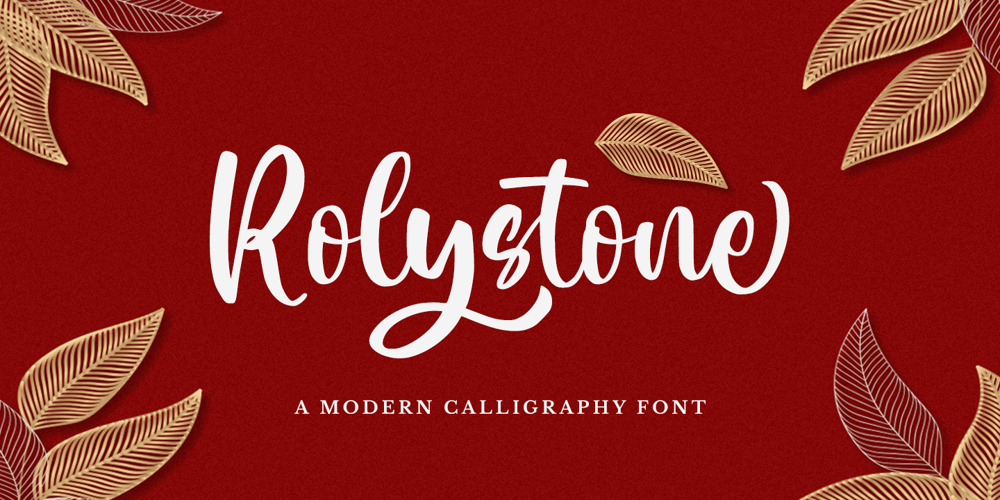
Rolystone Font Family was designed by Novia Himatunnisa and published by Nissa Nana. Rolystone contains 1 styles and family package options. Rolystone is a flowing and graceful script font. Fall for its ravishing style and use it to create gorgeous wedding invitations, beautiful stationary art, eye-catching social media posts, and much more!